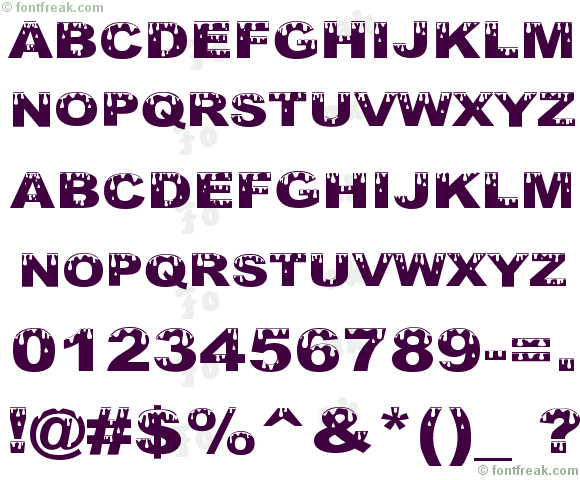
Yurine Overflow
About Yurine Overflow
Yurine Overflow by Gemfonts is a striking display font that captivates with its unique character and bold presence. This font features a decorative style characterized by its playful, dripping design, evoking a sense of fluidity and motion. The stroke weight is thick and robust, creating a strong visual impact, while the contrast between the bold characters and their dripping elements adds an intriguing texture. The spacing is carefully considered, ensuring that each letter maintains clarity and legibility despite its artistic flair.
Yurine Overflow is ideal for various creative applications. It shines in contexts such as event posters, where its eye-catching design can draw attention and convey energy. This font is also perfect for branding in the food and beverage industry, making it an excellent choice for restaurant menus or promotional materials, where a fun and engaging aesthetic can enhance customer experience. Additionally, it could be utilized in artistic projects, such as album covers or merchandise for musicians, where a distinct and memorable typography can help set the tone. Graphic designers and content creators will find this font particularly appealing, as it offers a unique approach to typographic expression.
What sets the Yurine Overflow font apart is its ability to blend boldness with a whimsical touch. This combination not only makes it visually striking but also versatile for various design projects. Whether you are looking to create a playful atmosphere or simply need a font that stands out, Yurine Overflow provides the perfect solution. With its testware license, you can easily explore the possibilities it offers. Don’t miss out on the opportunity to enhance your designs with the Yurine Overflow font free download, and let your creativity flow.